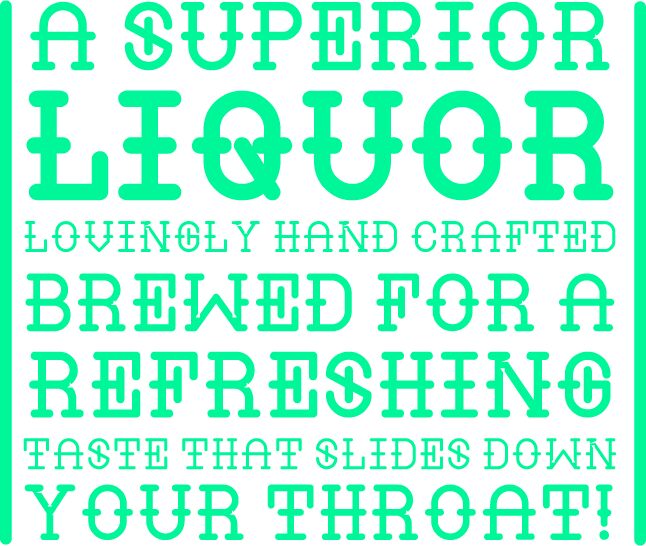
LIQUOR Bold
The Liquor Bold typeface exudes a commanding presence, captivating the eye with its bold, unapologetic strokes. Designed by William Bayley, this display font radiates a compelling sense of strength and confidence, making it an alluring choice for branding, headlines, and attention-grabbing design elements. The striking letterforms and striking contrast between thick and thin lines create a visually striking and impactful aesthetic, instantly commanding the viewer's attention.
Liquor Bold's versatility extends across a range of design applications, from bold, eye-catching posters and packaging to dynamic logos and editorial layouts. Its powerful presence lends itself particularly well to the world of spirits, where its robust and distinctive character can elevate and amplify brand identities. Additionally, the font's versatility allows it to shine in various contexts, from high-energy event promotions to sleek, modern web designs, making it a valuable asset in the creative professional's toolkit.